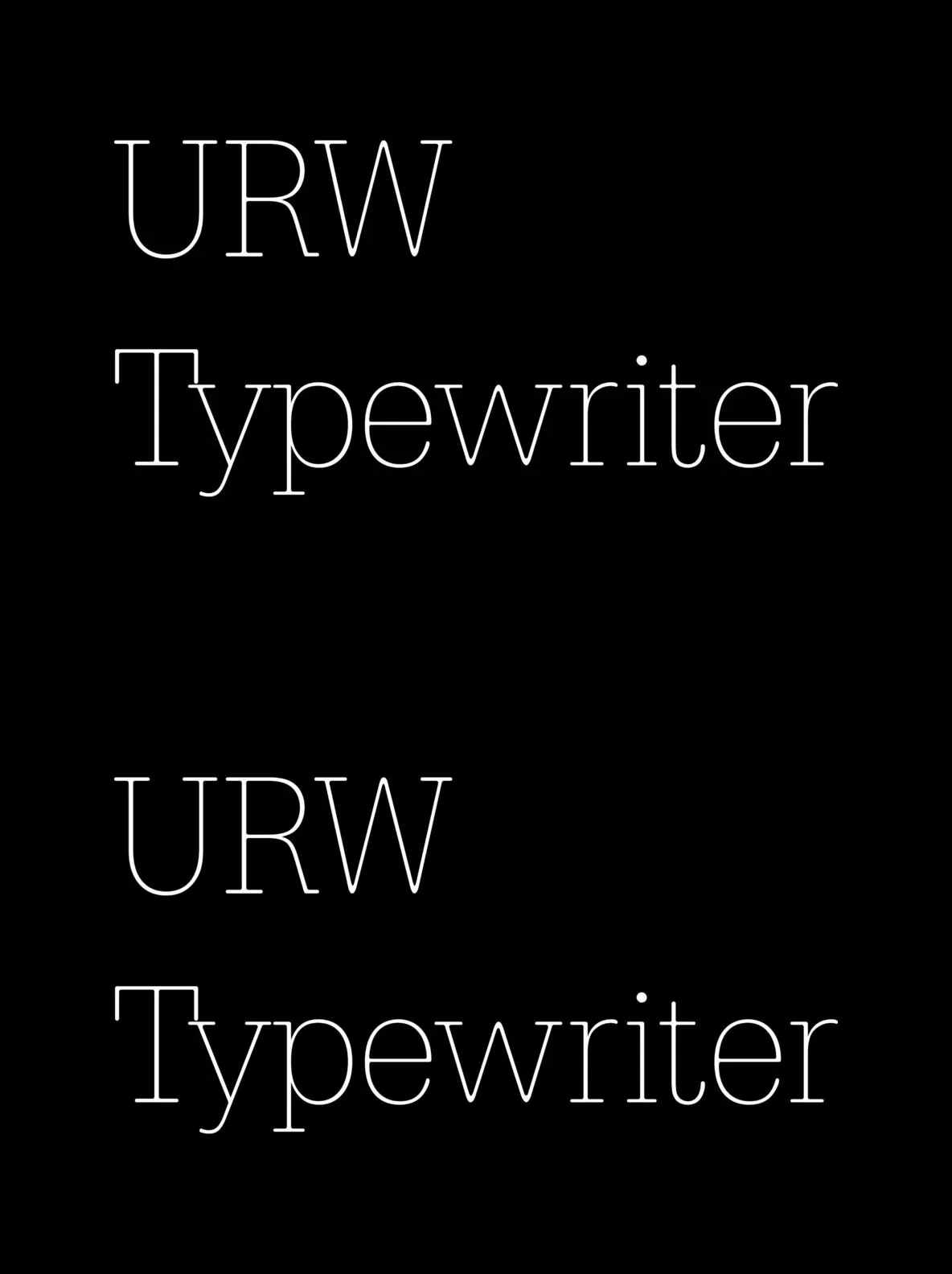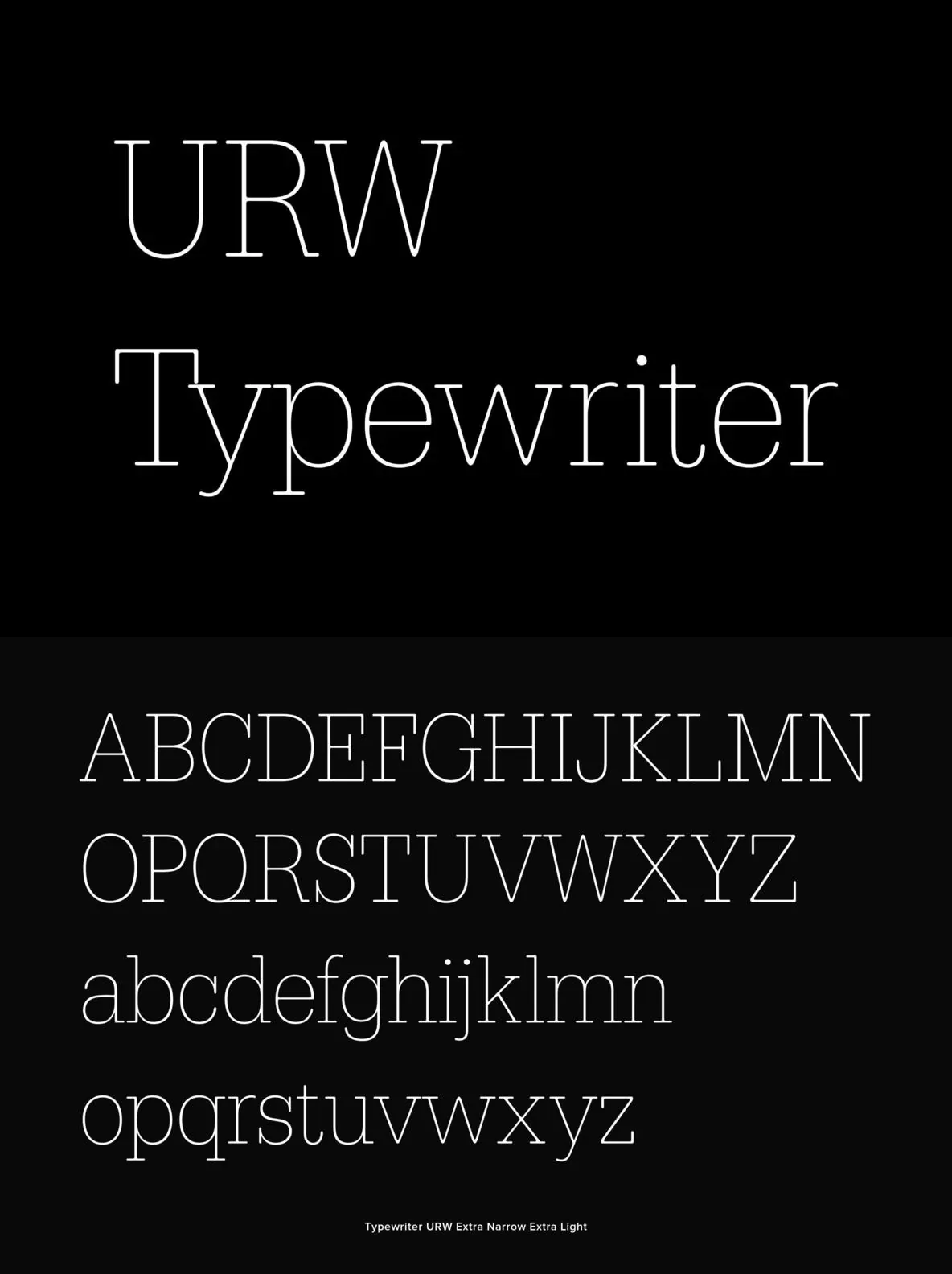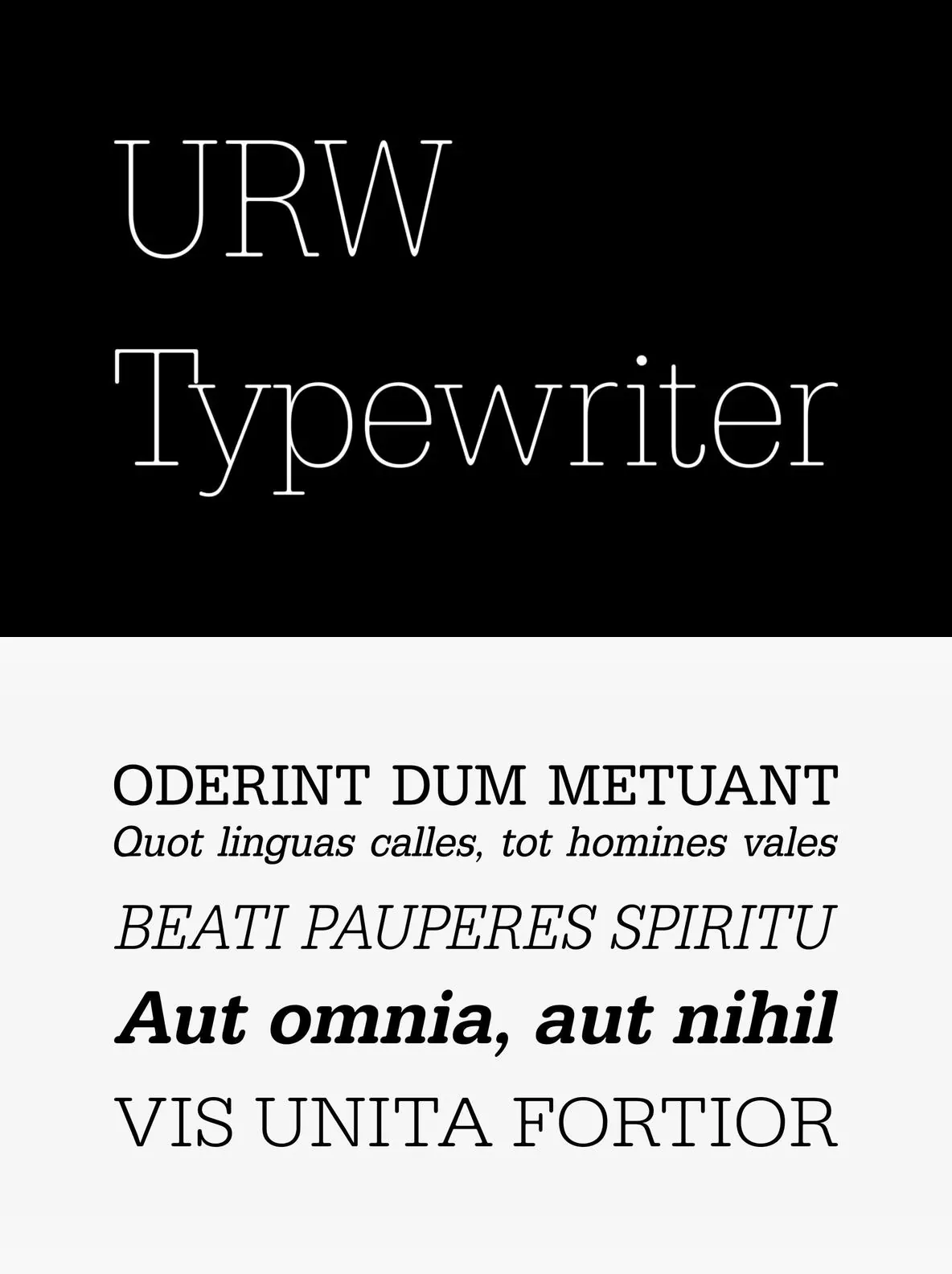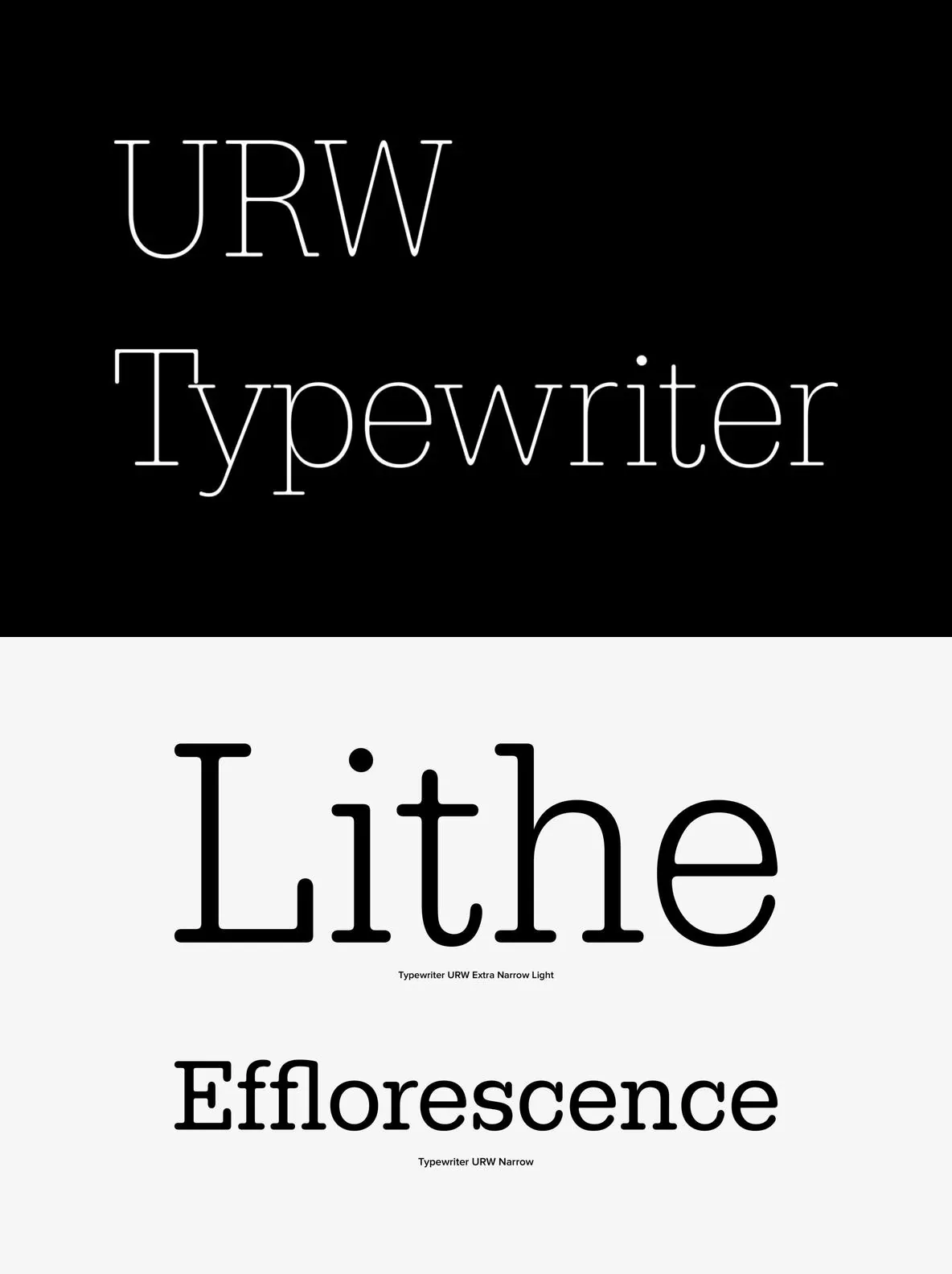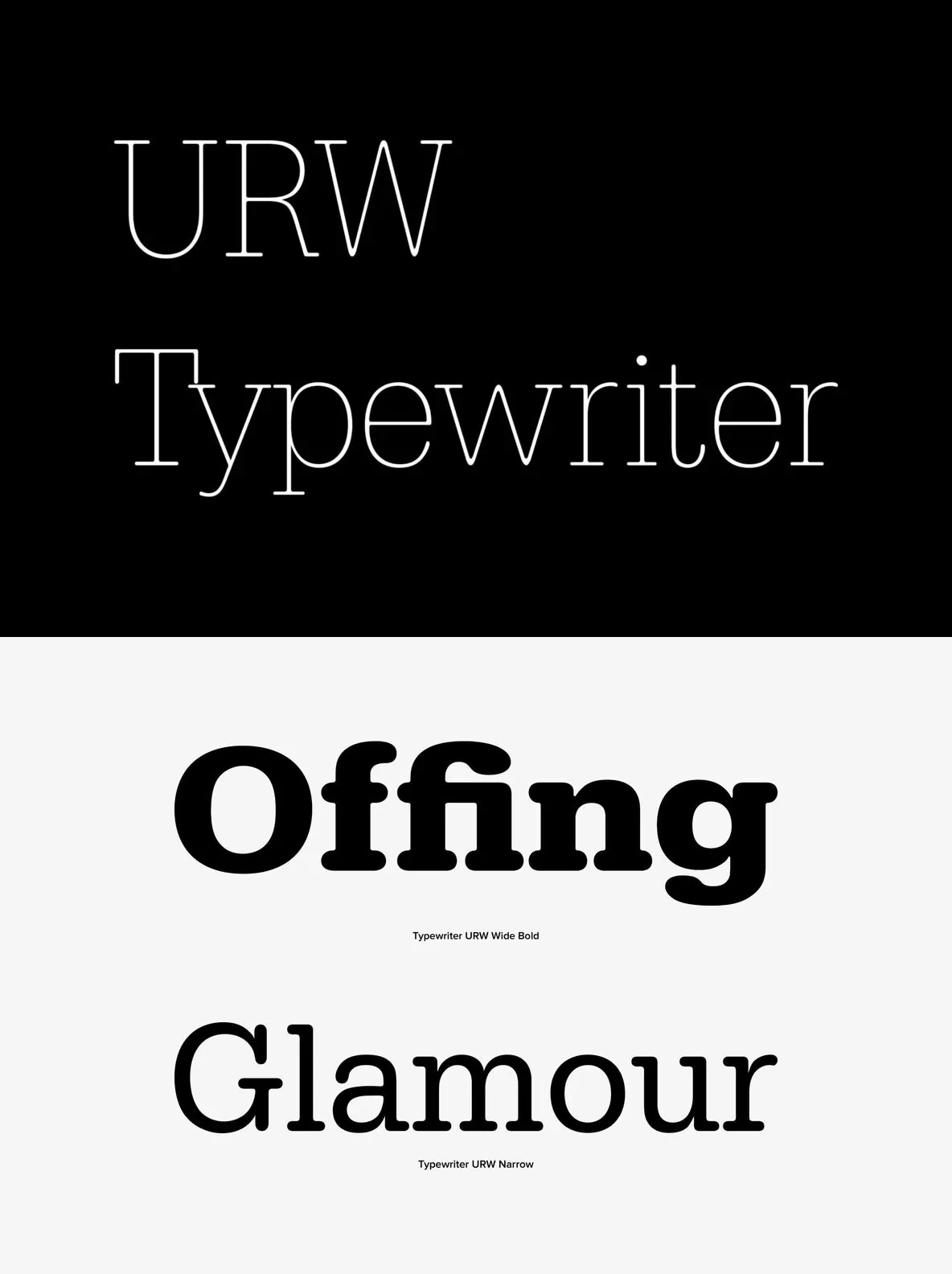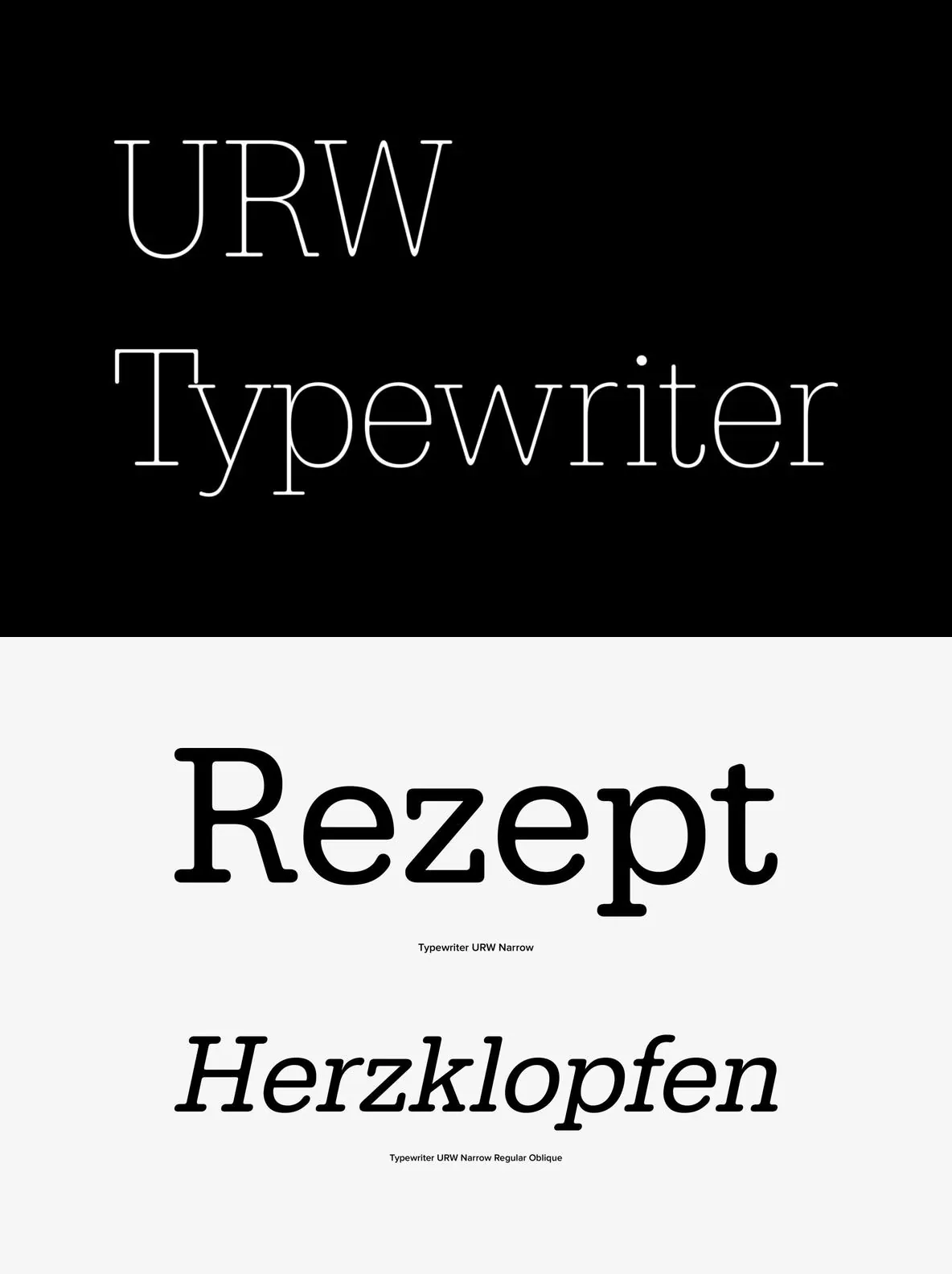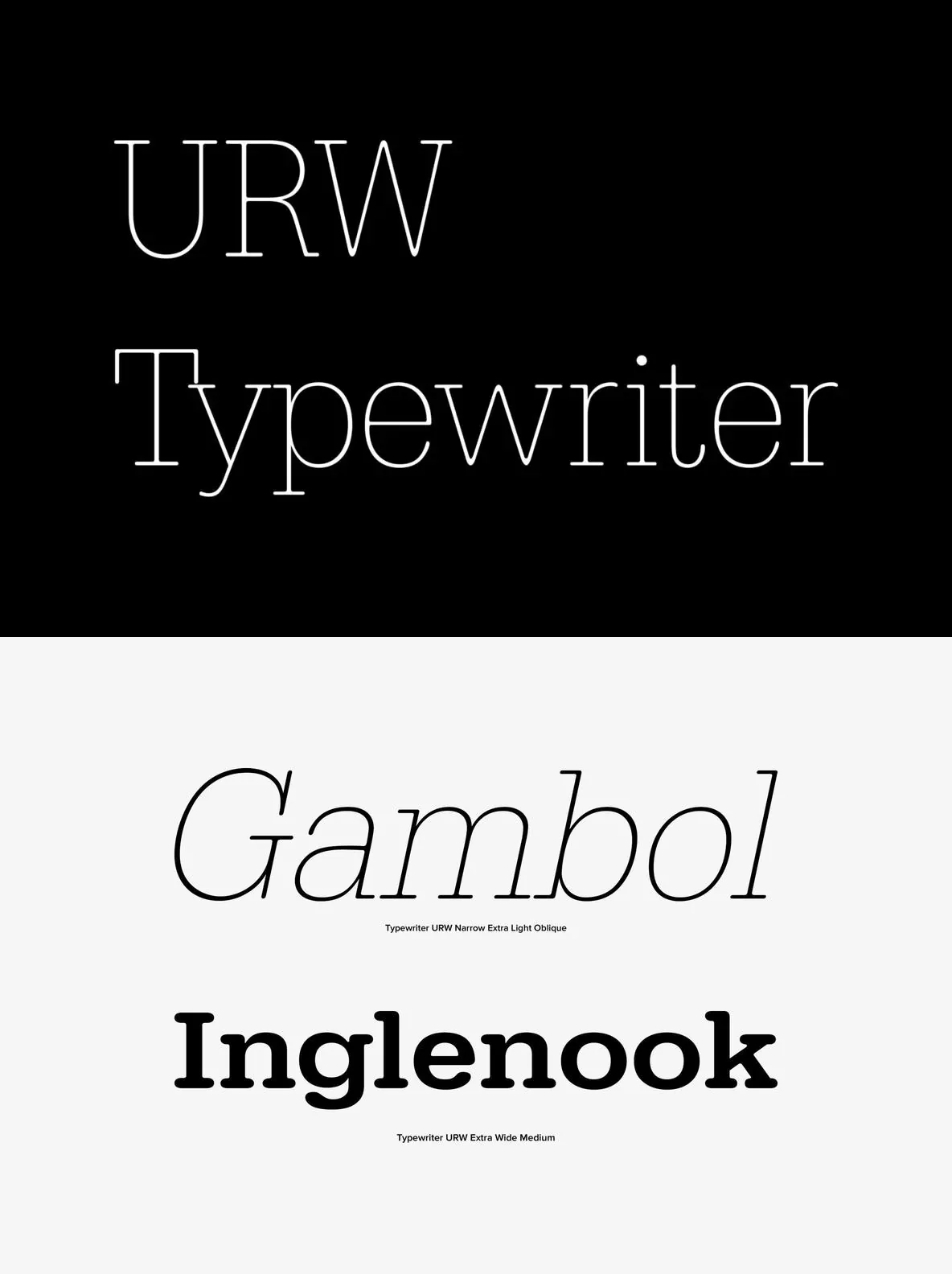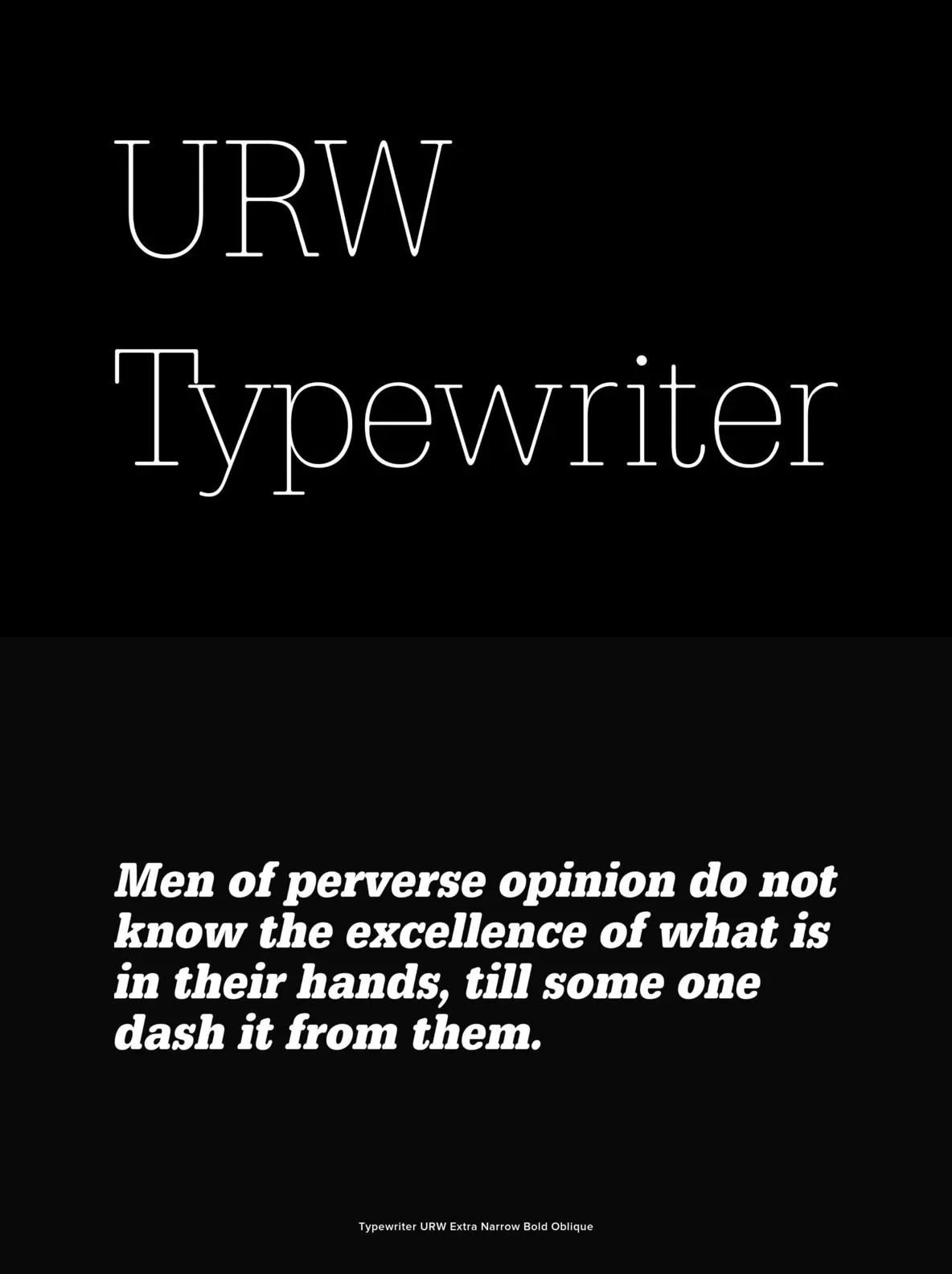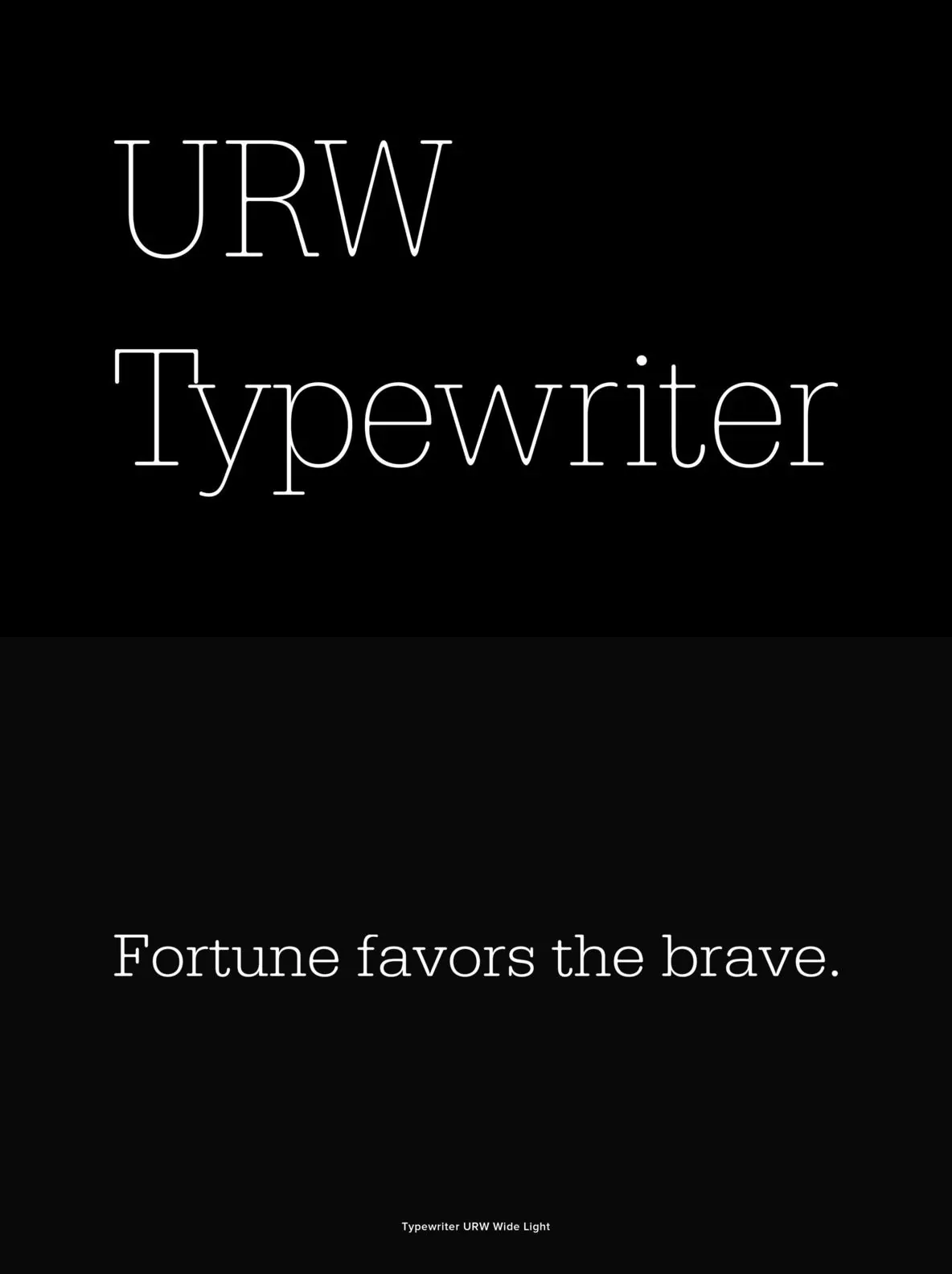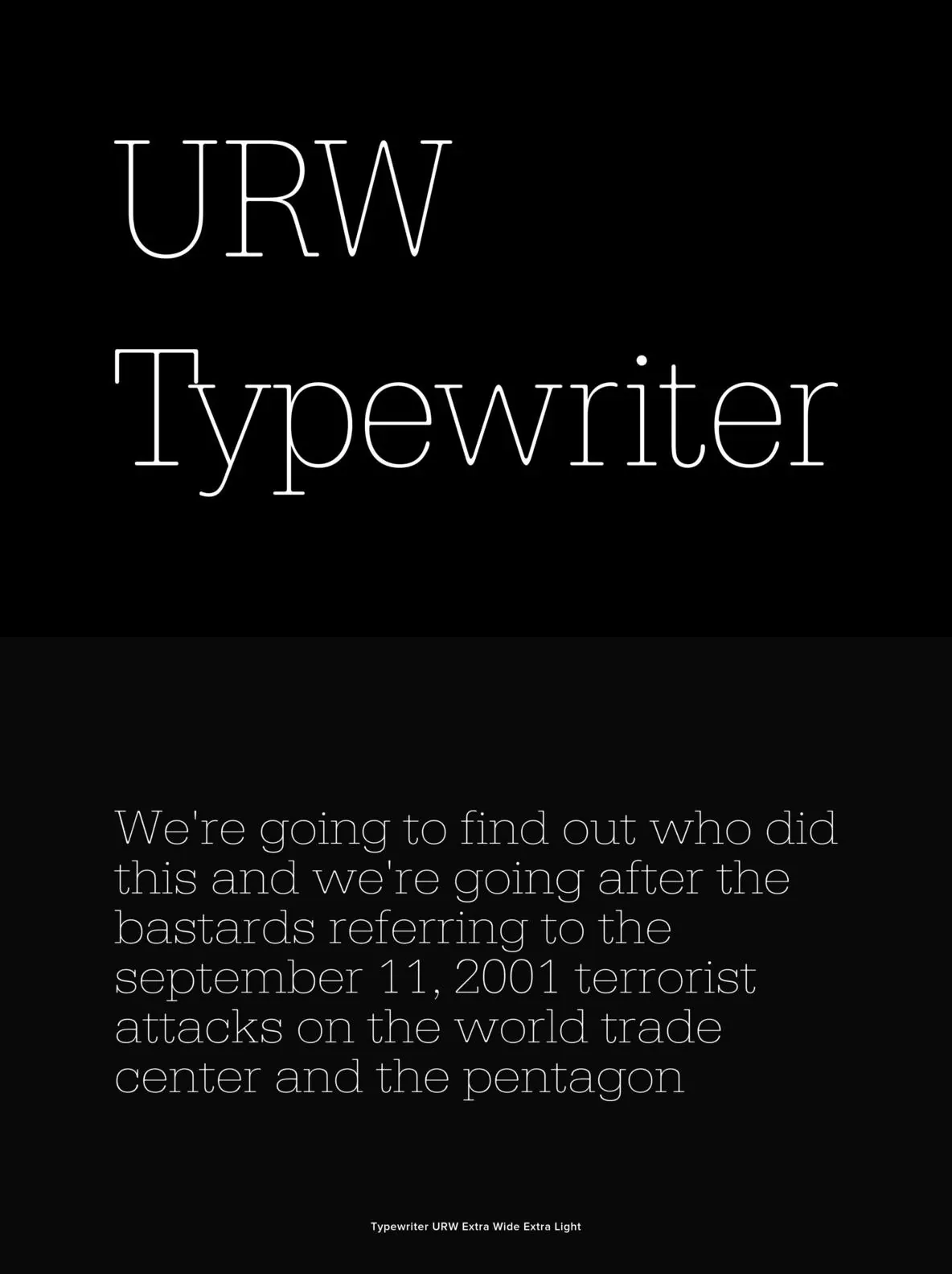
URW Typewriter Font
URW Typewriter: A Staple of Vintage Serif Design
URW Typewriter captures the timeless essence of typewriter style with sharp, deliberate serifs and classic proportions. Designed by URW Studio in 1994, this font offers the authentic feel of traditional typewriting, making it ideal for projects needing a sense of heritage and authenticity. Its crisp, well-defined letterforms provide excellent clarity across both print and digital media.
This typeface stands out for its balanced structure and versatility. Whether used for editorial layouts, branding, or packaging, URW Typewriter delivers reliable readability and a distinguished aesthetic. Its attention to detail and full feature set make it a practical choice for professionals seeking a trustworthy serif typewriter design.